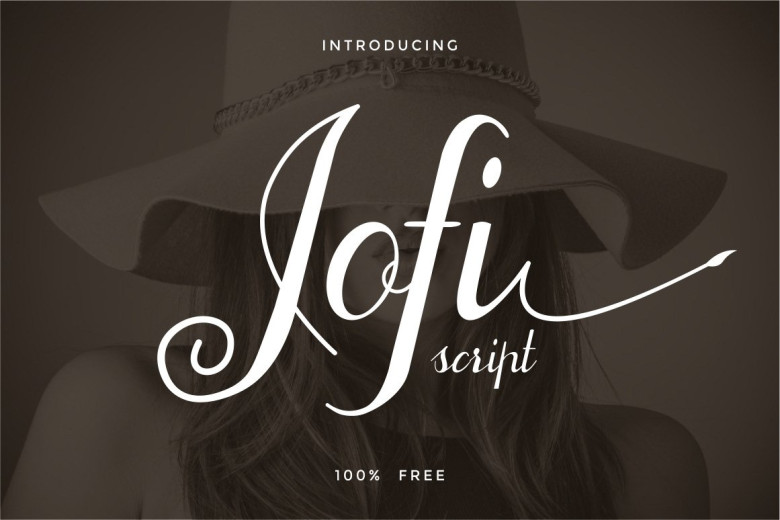
Jofi Script Font
Introducing you to a showing of an elegant calligraphy font, a new fresh handmade calligraphy font, perfect for creating stylish & stylish letters! Introducing Jofi Font. Jofi designed and shared by Yunita Ecy. This font is perfect for branding, logos, web and editorial design, branding, prints, invitations, crafts, quotes, and more.